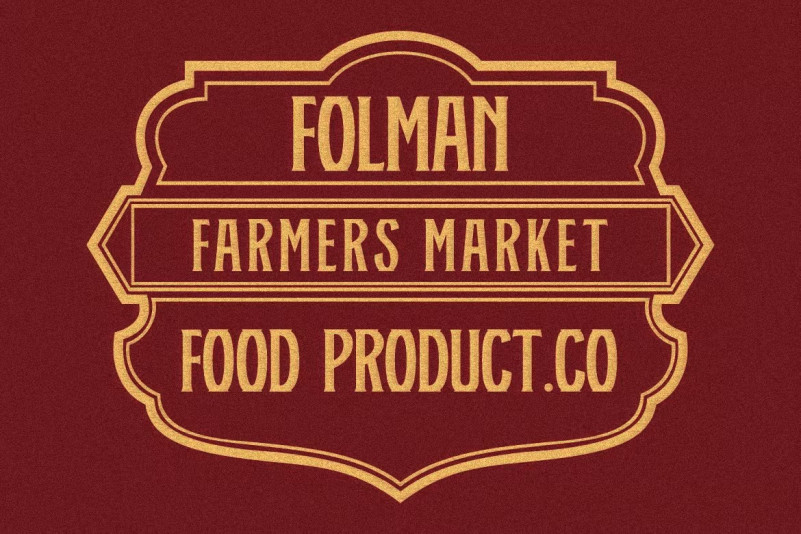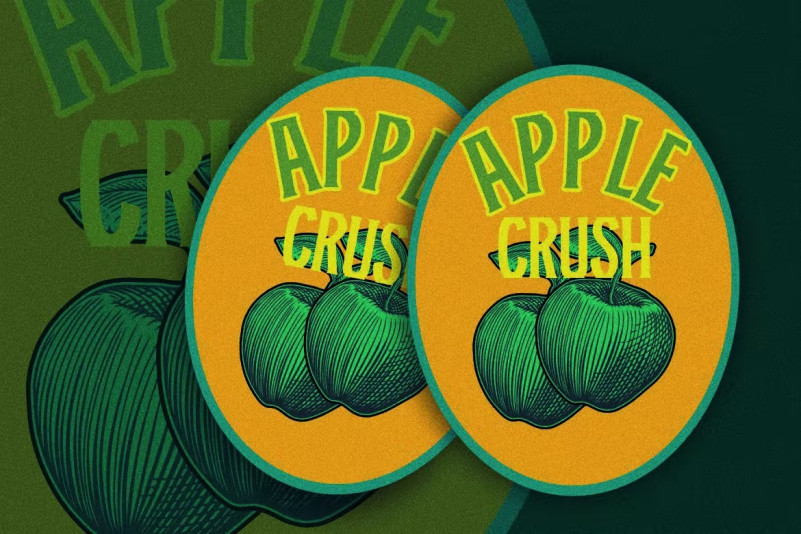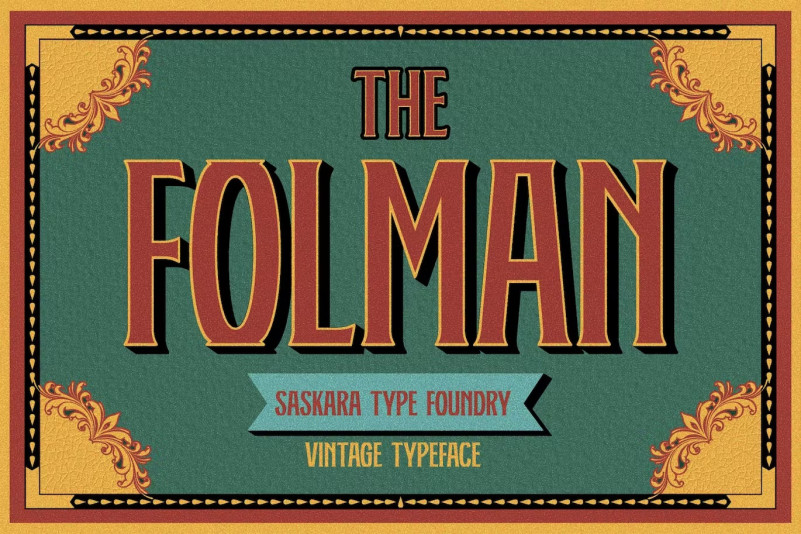
The Folman Font
THE FOLMAN is a vintage serif font, Inspired by Western culture Vintage Wild and inspired with a modern vintage touch packed strong and dynamic, Great font for printing logos, labels, Signage, Pubs, Shirt Designs, Tattoo Shops, Barbershops, Handmade Brands, anything only has to do with vintage style, etc